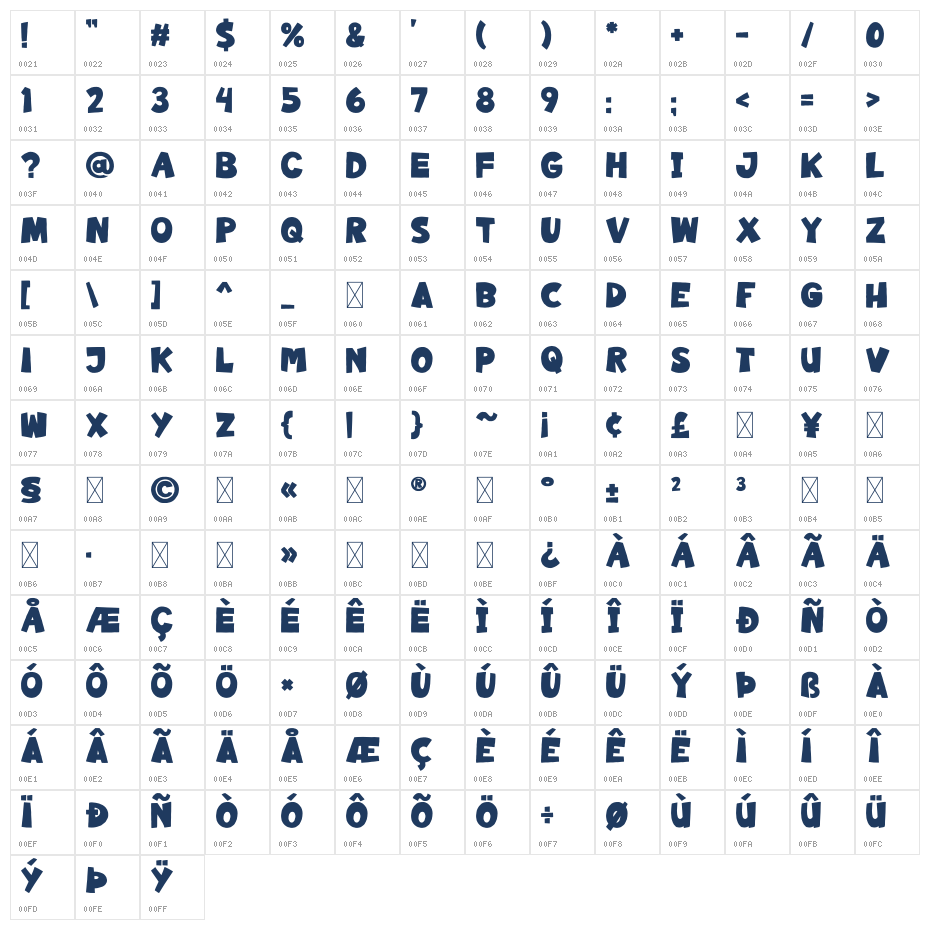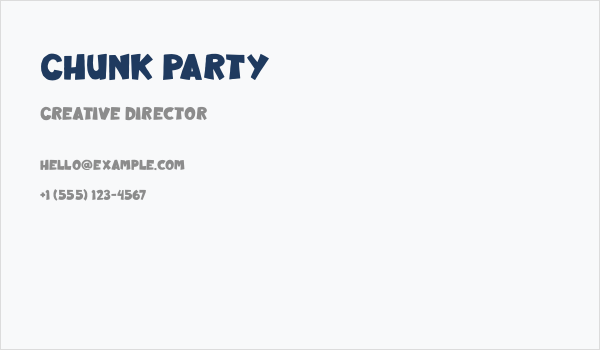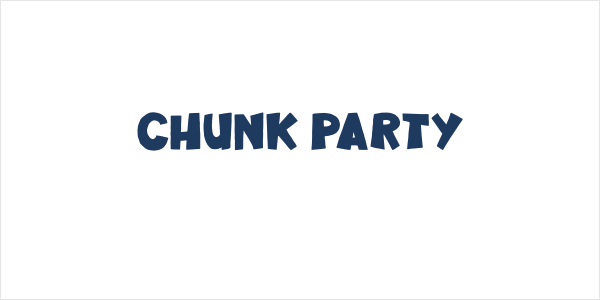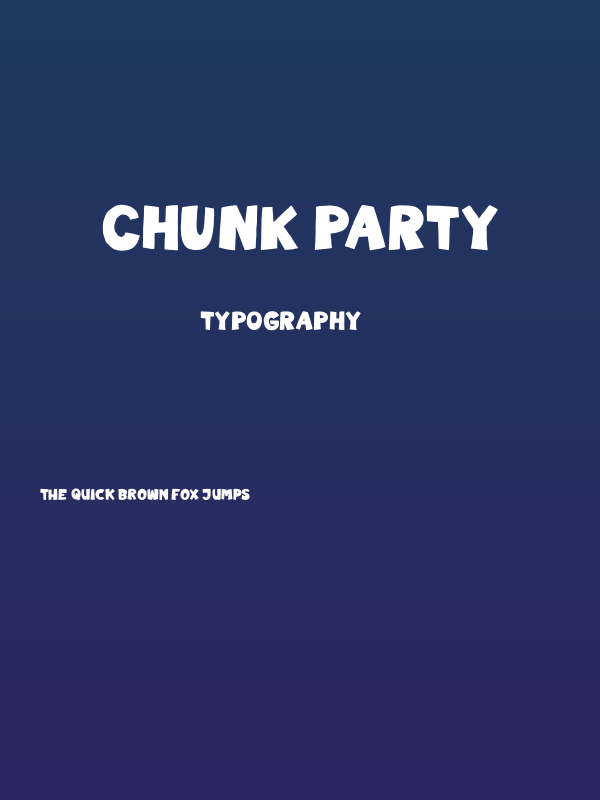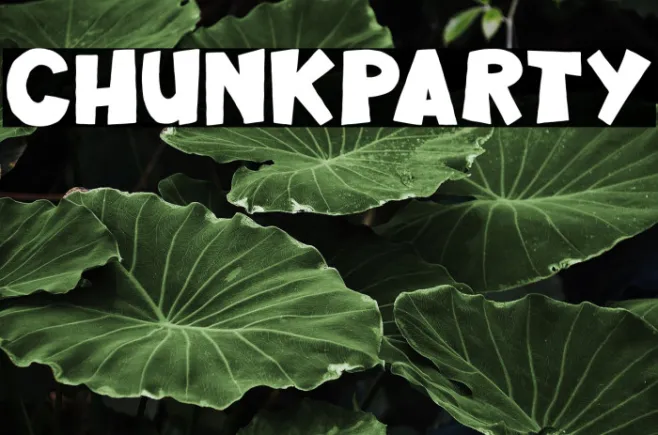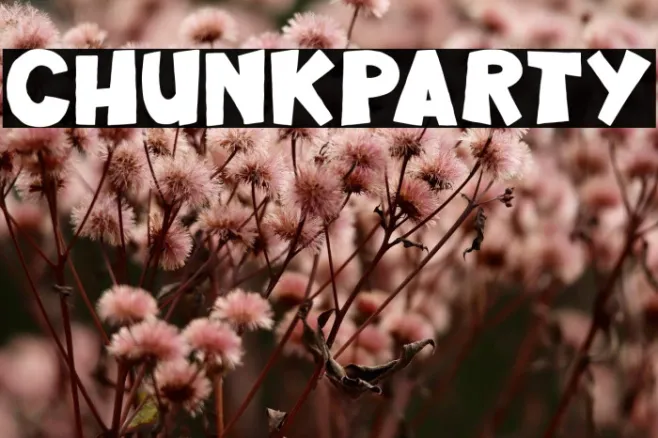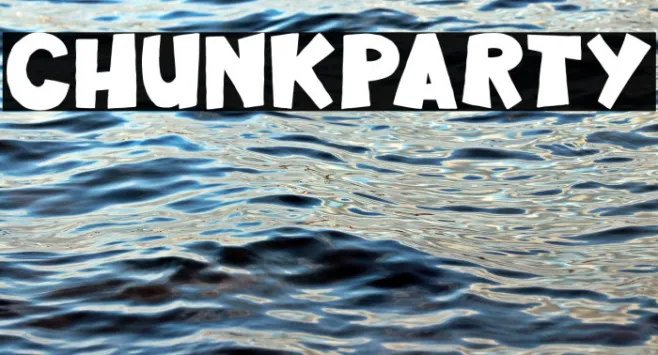
Chunk Party Font
Chunk Party Description
Bold, playful, cartoonish display font with irregular, chunky letterforms.
| Overall Style | Playful, Cartoonish, Bold |
| Use Case | Headlines, Posters, Logos, Children's media |